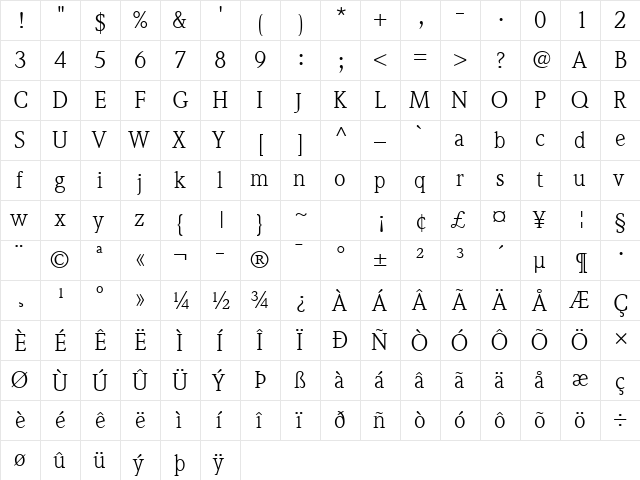
ITC Weidemann Com Book
| Foundry | Linotype GmbH |
| Designer | Kurt Weidemann |
Design Context for ITC Weidemann Com Typeface
ITC Weidemann Com is a composed and adaptable typeface that performs quietly and consistently across a wide range of design contexts.